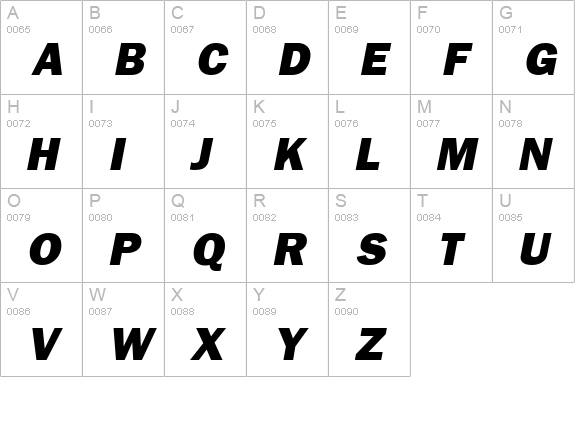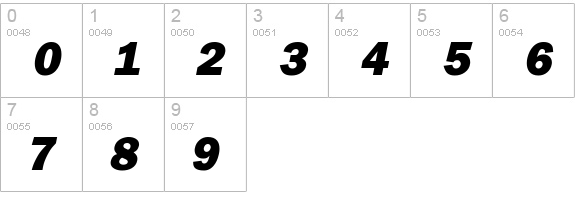
Franklin Italic Font Details
Franklin Italic is a distinctive, italic variant in the Franklin typeface family \xE2\x80\x94 well suited to design and typography projects.
The Franklin Italic font is a stylish and elegant typeface that exudes sophistication and modernity. Its sleek, slanted design adds a touch of flair to any project, making it perfect for both professional and creative applications. The italicized letterforms of Franklin Italic convey a sense of movement and dynamism, capturing the eye and drawing the reader in with their graceful curves and refined lines. What's even better is that Franklin Italic is available for free download at FontsMarket.com, allowing you to easily incorporate this stunning font into your designs without any cost. Whether you're working on a branding project, a website design, or a print publication, Franklin Italic is sure to elevate your work and give it a touch of sophistication and style. Download it today and start creating beautiful, eye-catching designs with this exquisite font.